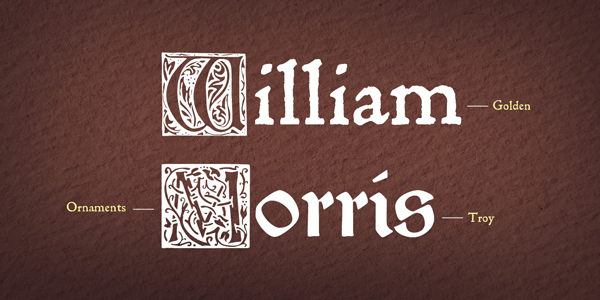
Type, Image, and Border Fonts for Festive Occasions
A collection of great fonts for a multitude of festive uses
No matter what time of year it is, the next holiday or cause for celebration is not far off. Whether it be Thanksgiving, Chanukah, Christmas or Kwanzaa, weddings, birthdays and other milestones, anything made by hand comes from the heart, and shows a lot more love and care than any store-bought item. Examples of some of the countless opportunities to create personalized, custom-made projects include:
- greeting cards
- invitations, announcements, and thank-you notes
- tee shirts, mugs, and other keepsakes
- party decorations and banners
- shopping bags and holiday wrap
- videos and motion titles
Finding just the right type and image can be the most time-consuming aspect of a project. Yet selecting the right typeface(s) can be the key element that can make or break their effectiveness and success. We searched high and low for some great fonts for a multitude of festive uses, and here is just a sampling of what we found:
Typefaces
Many, but not all, festive fonts appropriate for decorative use are calligraphic in nature. While some are best used for headlines and display text, others can be used for text where a high degree of legibility is called for. Whatever your needs are, be sure your chosen fonts work well at the full range of required sizes.
Cancione is a graceful, stylized all-cap design with a weathered appearance. The elegant letters are complemented by a variety of ornaments and flourishes as well as alternates and stylized words.
Champion Script is an award-winning script with a wide selection of ligatures and alternate forms, including small caps, ornaments, and an assortment of frames and flourishes.
Dancing Script is a lively, casual script where the letters bounce and change size slightly. Use this open source font when you want a friendly, informal and spontaneous look.
Ed Script is an authentic retro script originally designed by the renowned Ed Benguiat. Its continuous connecting characters, bouncy twin letters, and alternate forms give it the appearance of authentic hand-lettering.
Evita is an upright casual script that is evocative of the Art Nouveau era. This extremely readable font can express anything from an elegant, romantic mood to an ethereal, ghoulish one.
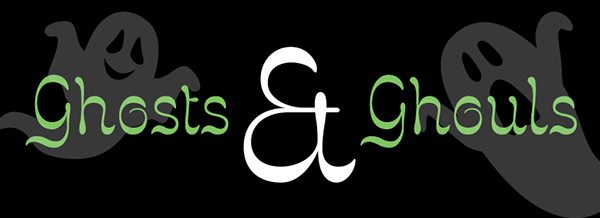
Four Seasons is a handwritten typeface inspired by nature and its changes in summer, spring, fall and winter. It has an extensive character set including titlings, endings, initials, swashes, ligatures, as well as ornaments, dingbats and words based on shoots, branches, leaves and flowers.
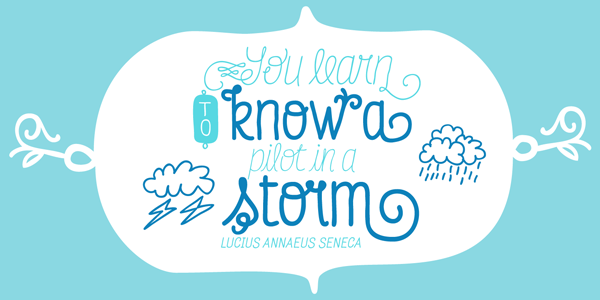
Lobster is an assertive bold, condensed open source script loaded with hundreds of ligatures and alternate characters.
Riva is a casual script style that abounds with natural curves and swash terminals. Its lighthearted design features create a carefree yet elegant appearance.
Rosarian celebrates the painterly grace of the pointed brush. Elegant swash capitals and delicate curls that sprout like vines lend it a fanciful look suggestive of the Art Nouveau era.
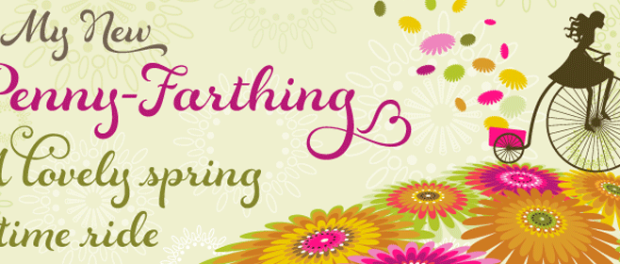
The Wendy family is a cursive script in three weights. This upright, casual handwriting style projects a friendly persona and an approachable appearance.
Decorative Initials
LTC Ornamental Initials are lovely, organic initials with a snow-like background.
The Ornate Initials collection includes three highly stylized, floral initials.
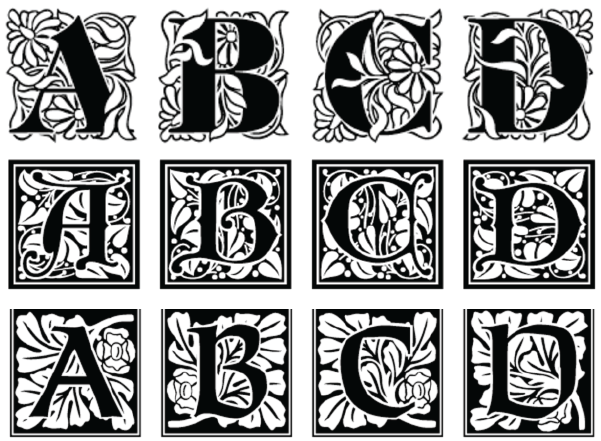
Sattler AS Initials were designed in 1897 by Joseph Kaspar Sattler, one of the great German art nouveau artists.
Images & Ornaments
Images and symbols go a long way towards capturing a specific mood, occasion, or holiday. The good news is you don’t have to be an illustrator to create them. There are many fonts to choose from containing decorative and seasonal graphics, from snowflakes and leaves, ornaments, religious symbols, and food and drink-themed images. They can be converted to outlines, altered and custom colored for the desired effect.
The Lanston Christmas Ornaments collection is a collection of classic Christmas and Winter iconography with a nostalgic feel. It includes images for Easter, Valentine’s Day, St. Patrick’s Day, April Fool’s Day, Thanksgiving and 4th of July.
DF Celebrations is a highly stylized collection of designs relating to the four seasons, major and minor holidays plus Bar Mitzvah, birthday, christening, first communion, graduation, prom, and wedding imagery.
Type Embellishments is a unique and handsome collection that range from classic, art nouveau and art deco to calligraphic and copperplate.
Bodoni Ornaments is a stunning collection of 122 glyphs that can be used for any kind of decorative elements.
Borders & Backgrounds
The addition of decorative borders as well as background patterns can be just what is needed to give a design that extra something to complete it and make it stand out.